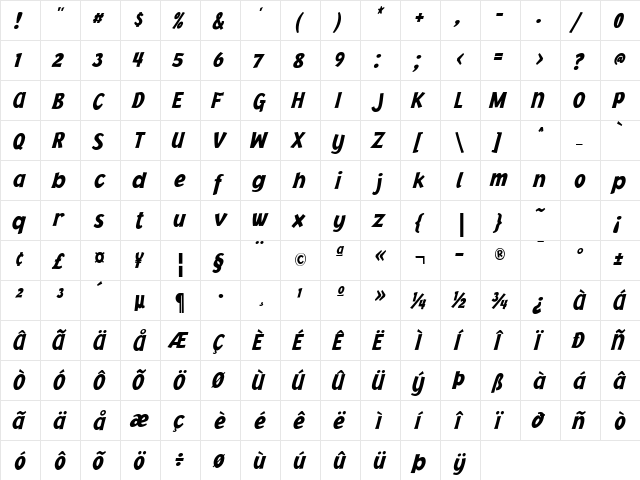
Jacoby Cond ICG BlackItalic Font Preview
Design Context for Jacoby Cond ICG Typeface
Jacoby Cond ICG is a composed and adaptable typeface that performs quietly and consistently across a wide range of design contexts. The slanted form adds forward momentum and visual energy. The condensed width makes it efficient for tight spaces without sacrificing legibility.
Pro Tip: Try Jacoby Cond ICG for annotation and caption copy alongside an upright companion — the contrast in angle creates a dynamic but ordered typographic system.